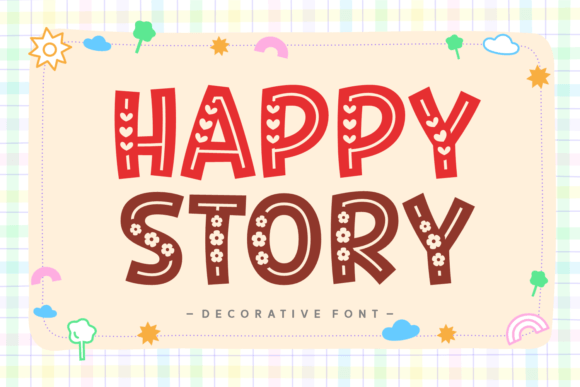
Introducing Happy Story Font, the latest addition to our decorative font family! Created by Situjuh, this font is sure to add a playful touch to your designs with its whimsical flowers and cute little hearts.
Looking for a font that can elevate your headlines and make them stand out? Look no further than Happy Story! Its unique and eye-catching design is perfect for all kinds of decorative purposes. Whether you're designing wedding stationery, invitations, flower shop signage, packaging, social media posts, or any spring-inspired designs, Happy Story is the perfect choice for you!
But Happy Story isn't just beautiful – it's also versatile and easy to use. With its clean lines and bold strokes, this font is legible even at small sizes, making it perfect for both print and digital designs. And with its extensive character set, including multilingual support, you can use Happy Story for a variety of projects with ease.
So why should you choose Happy Story Font? Because it's more than just a font – it's a way to add personality and charm to your designs. With its playful and romantic feel, Happy Story is sure to evoke emotions and connect with your audience. Plus, with its keyword-rich and informative design, Happy Story is perfect for optimizing your e-commerce site and attracting more customers.
Don't settle for boring fonts – choose Happy Story and let your designs tell a story!